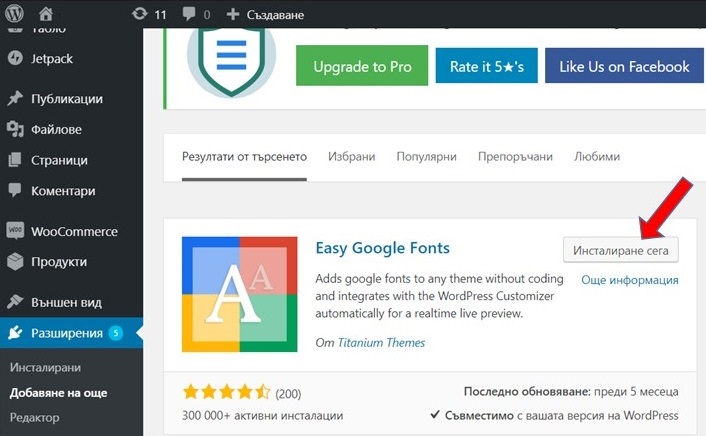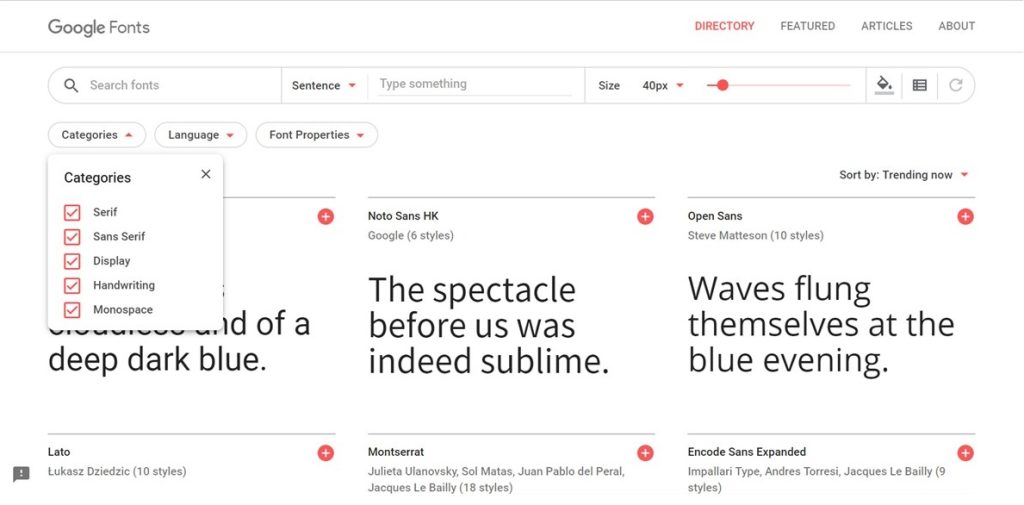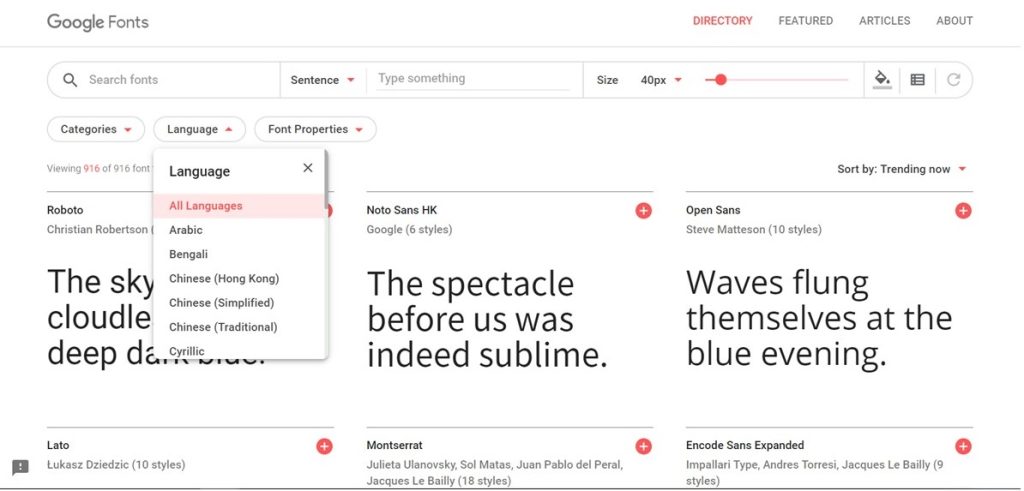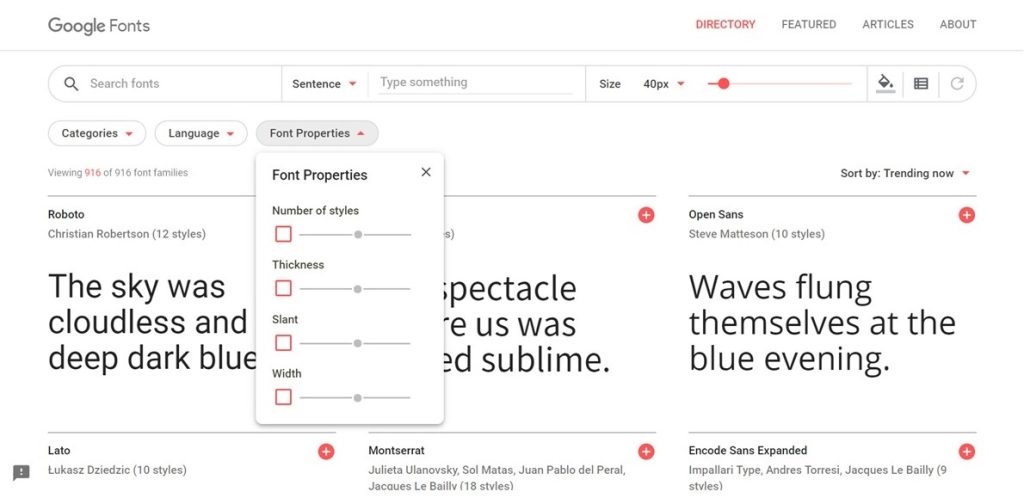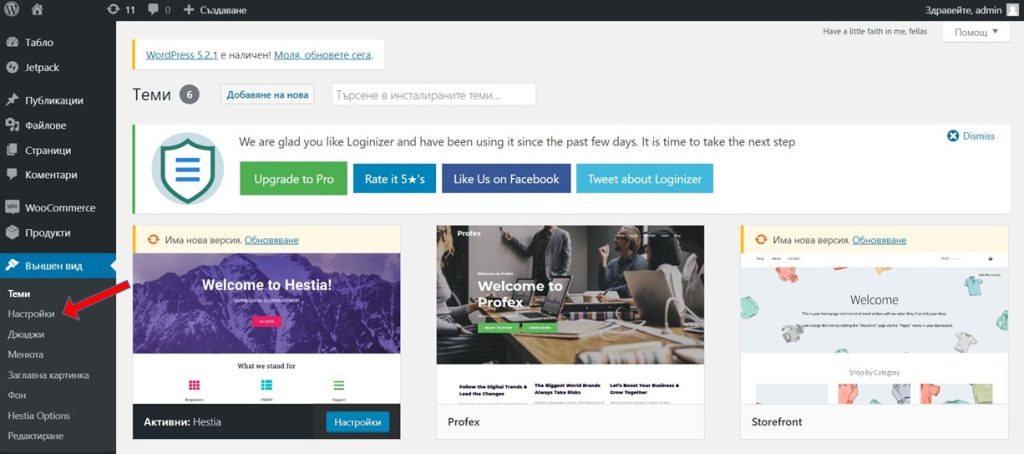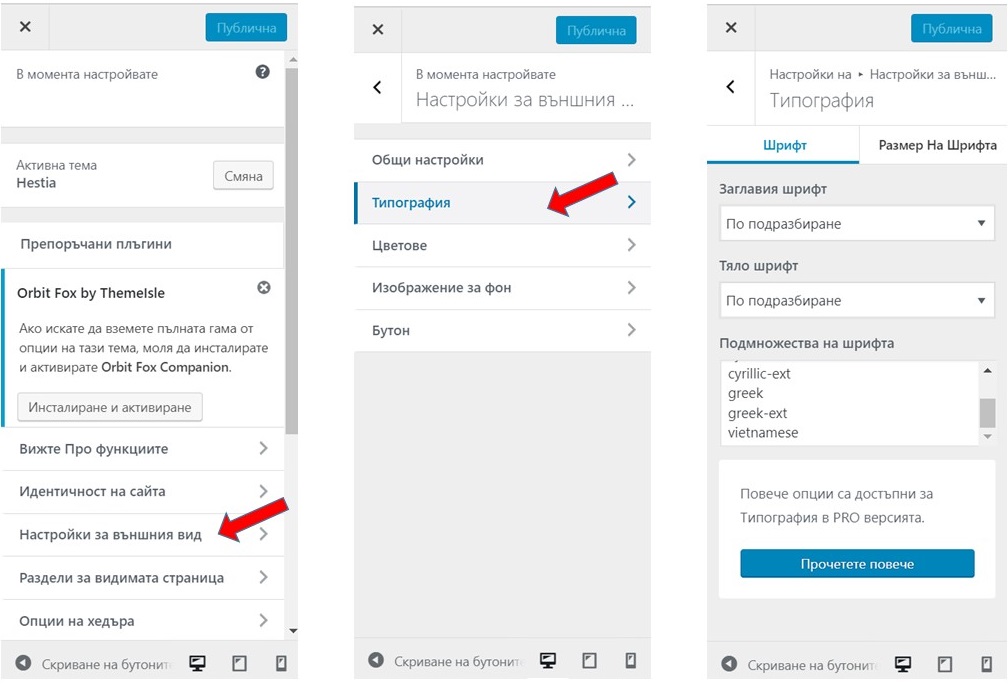
How to Add Google Fonts to WordPress or WooCommerce Websites?
One way to visibly improve the design of your WordPress website is to use the right fonts for your content.
Why Choose and Use Google Fonts?
With Google Fonts, all fonts are available directly from the Google directory. Their correct function on almost all devices and browsers is guaranteed.
In recent years, Google Fonts has become one of the largest font resources on the Internet.
How to choose the most suitable font?
Depending on what you want to emphasize in the content of your website, the choice of fonts will depend on this. They serve to draw attention to individual elements, and at the same time, you can create an eye-catching and unique design.
Google Fonts offers different classifications of fonts to make your selection easier.
Google Fonts by Categories
Google Fonts by Language
Google Fonts by Font Properties
Some fonts are excellent for headlines but not ideal for content and vice versa. The fonts you choose for your content should be clean and easy to read, while the fonts for headlines should have maximum impact and grab the attention of website visitors.
How to Use Google Fonts?
How to Change the Theme Font?
Some WordPress themes contain integrated options to easily change the Google font. Through the Appearance, Settings, and Typography tab, you can edit the main fonts, font size, and even line spacing for elements throughout the theme.
How to Change the Theme Font - step 1
How to Change the Theme Font - step 2
If you're using a theme that doesn't offer this option, you can add Google Fonts manually or use a plugin.
Font Plugins for WordPress
Use WordPress plugins to add Google Fonts. One of the most popular and free extensions is Easy Google Fonts
The most important functions of this WordPress plugin are:
• manage the typography of your WordPress theme without using codes;
• a selection of over 600+ Google fonts (including their variants);
• create your own font controls;
• allows you to add Google Fonts to your theme without editing the main theme;
• easily format the appearance of your website;
• preview how your theme will look with modified fonts before you save the changes and much more.
In the next topic, we'll show you how to work with Easy Google Fonts.
Google Fonts is used by millions of users every day and is a very good place to go to choose the most suitable and effective font for your website.